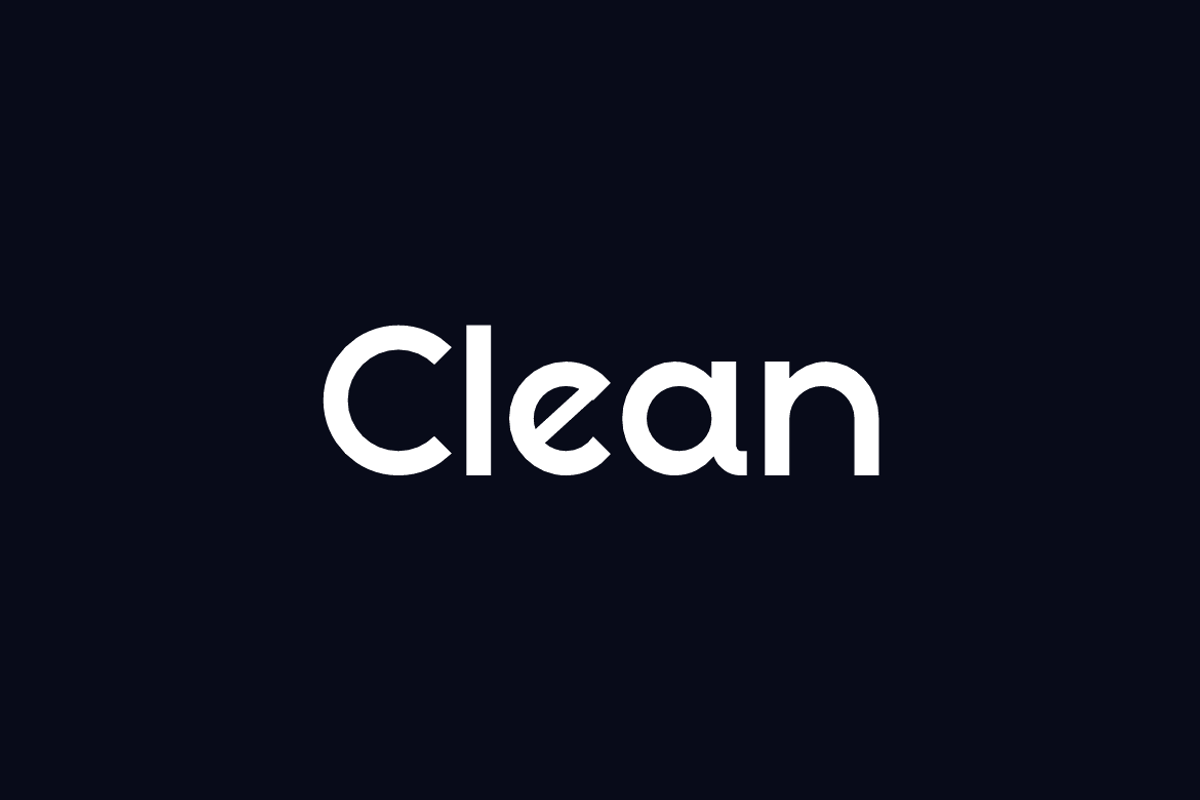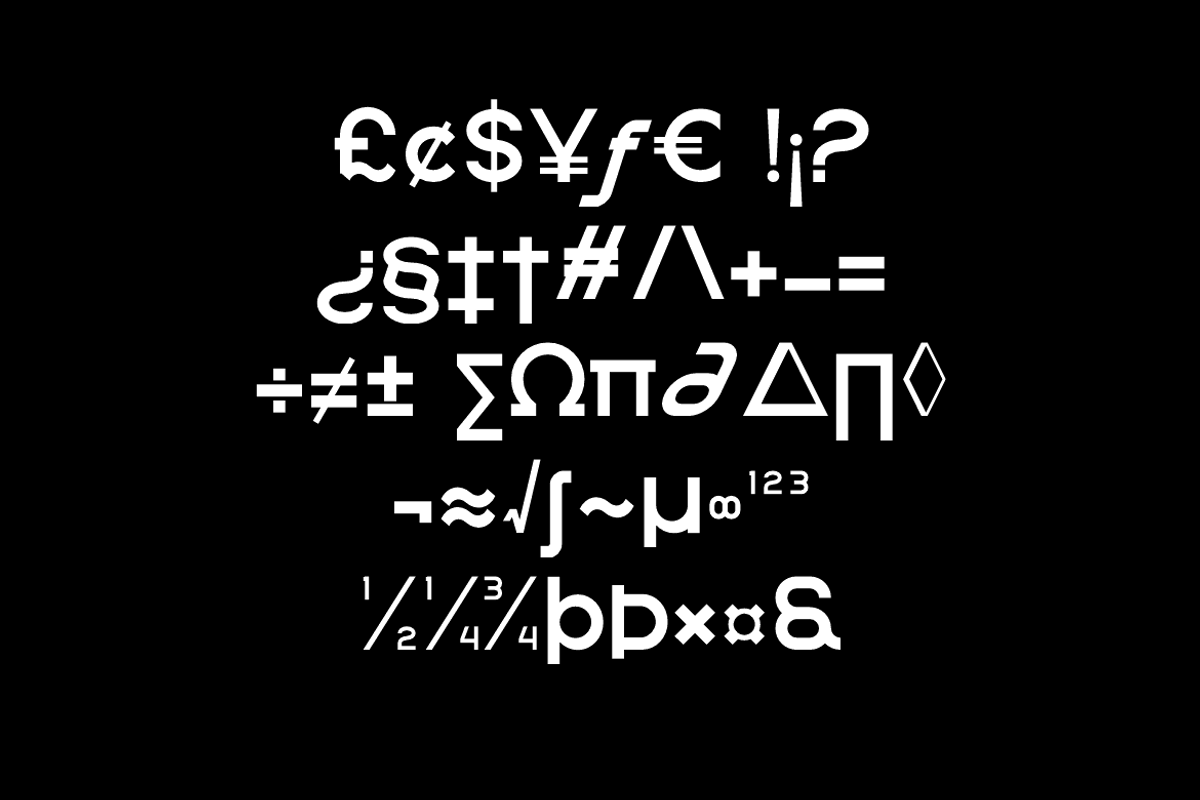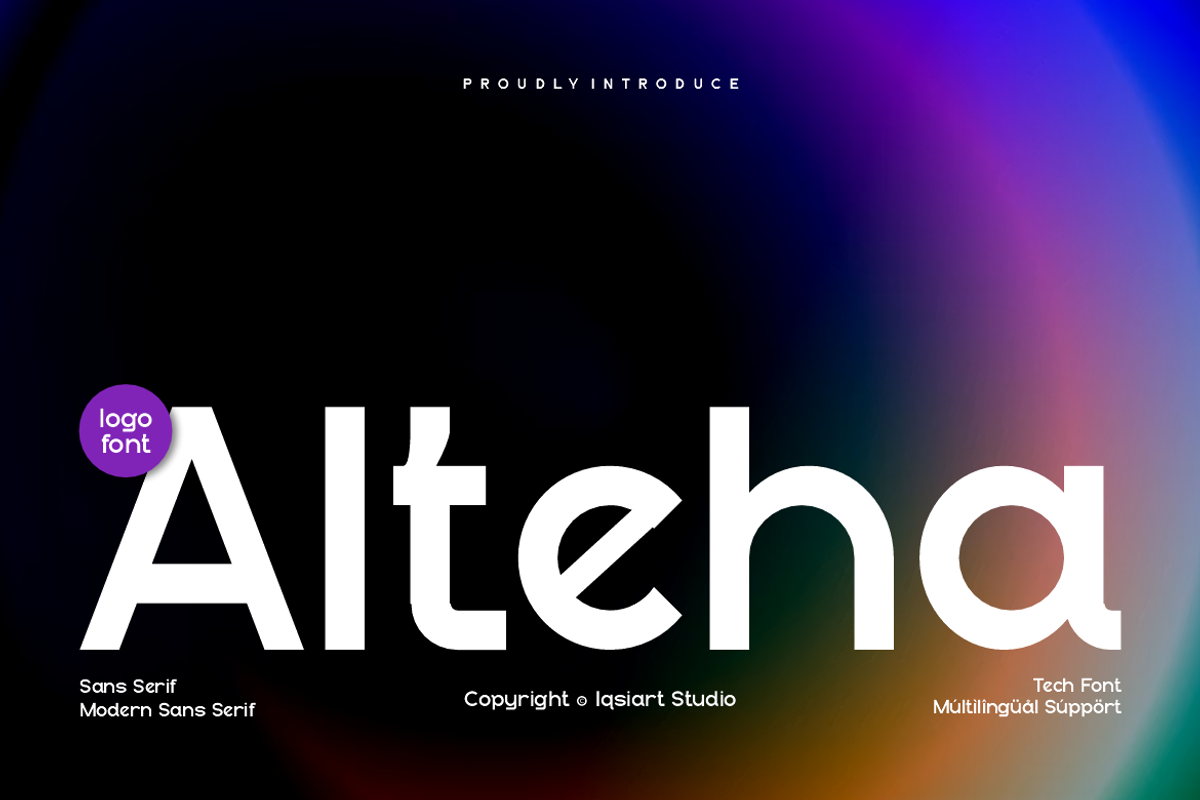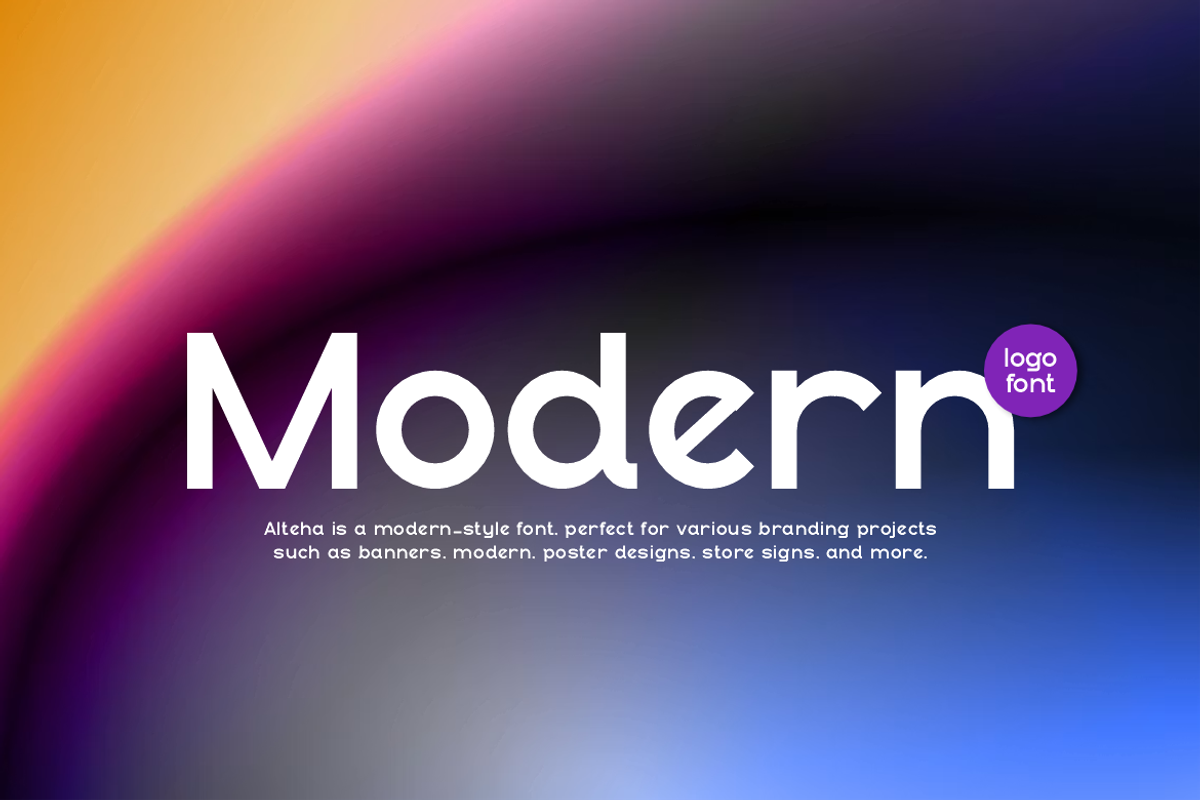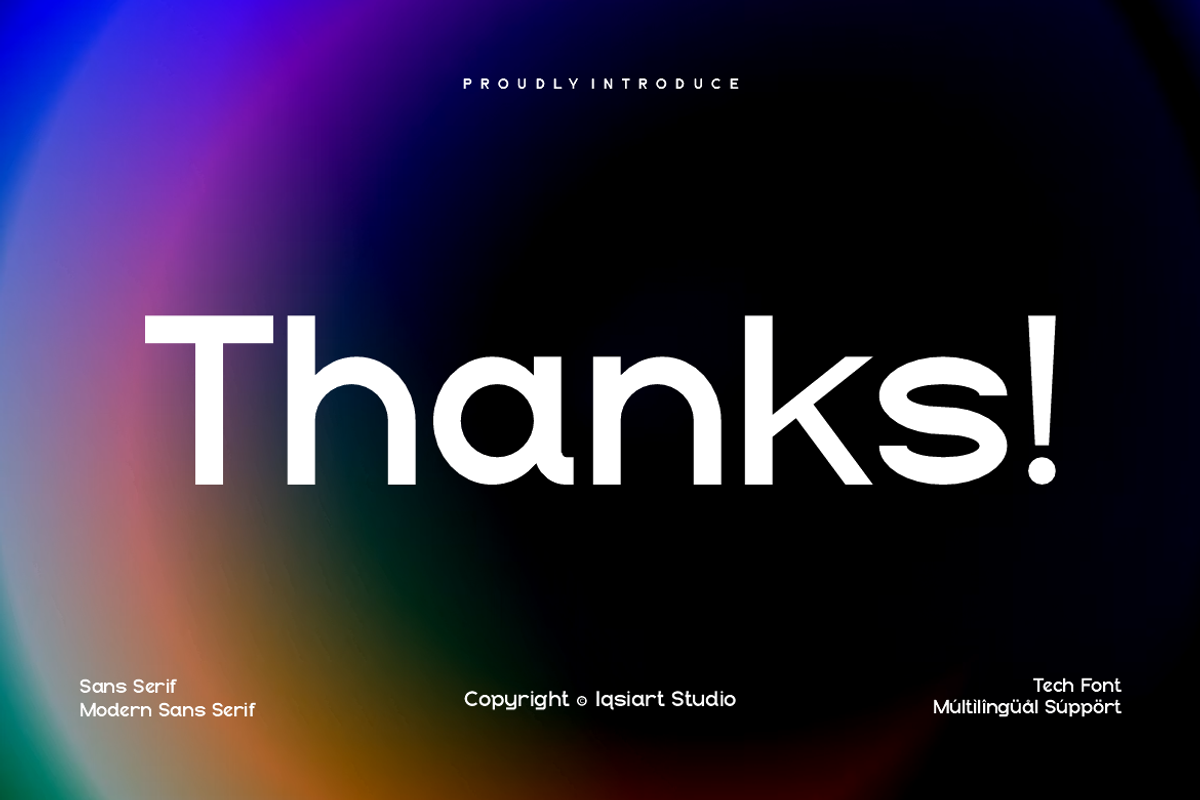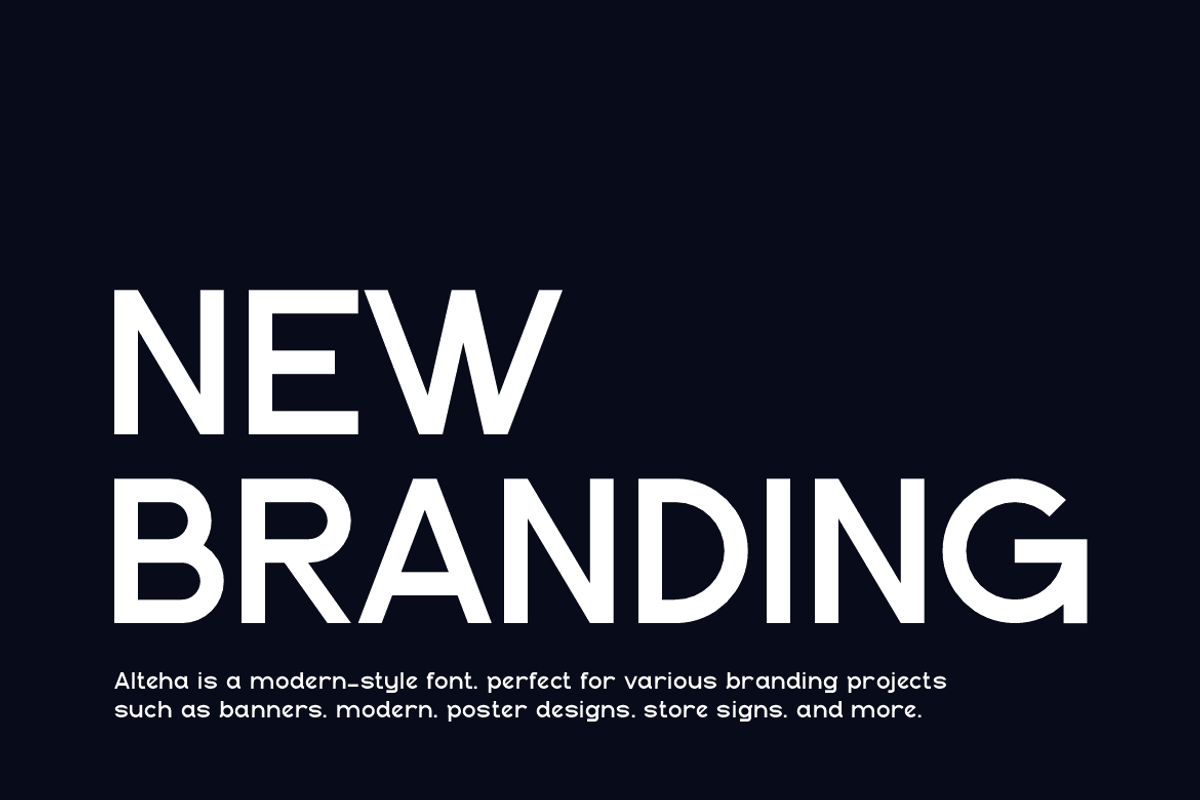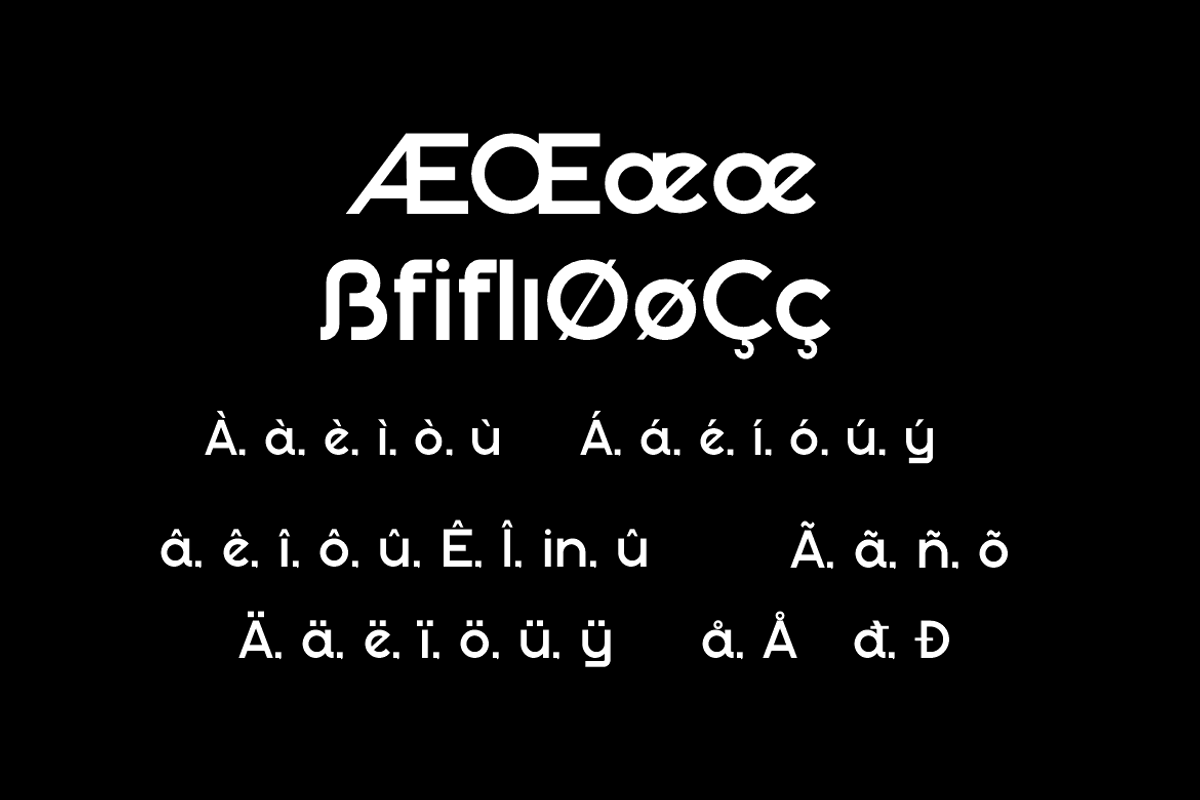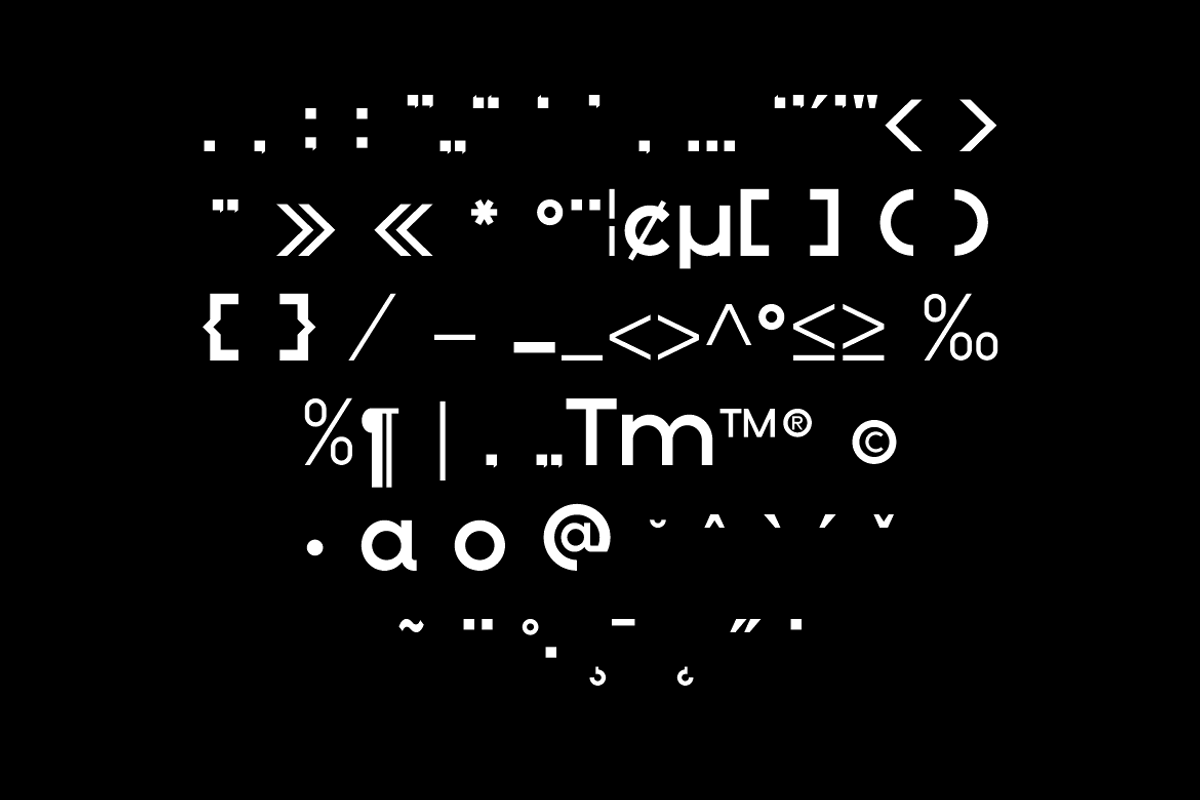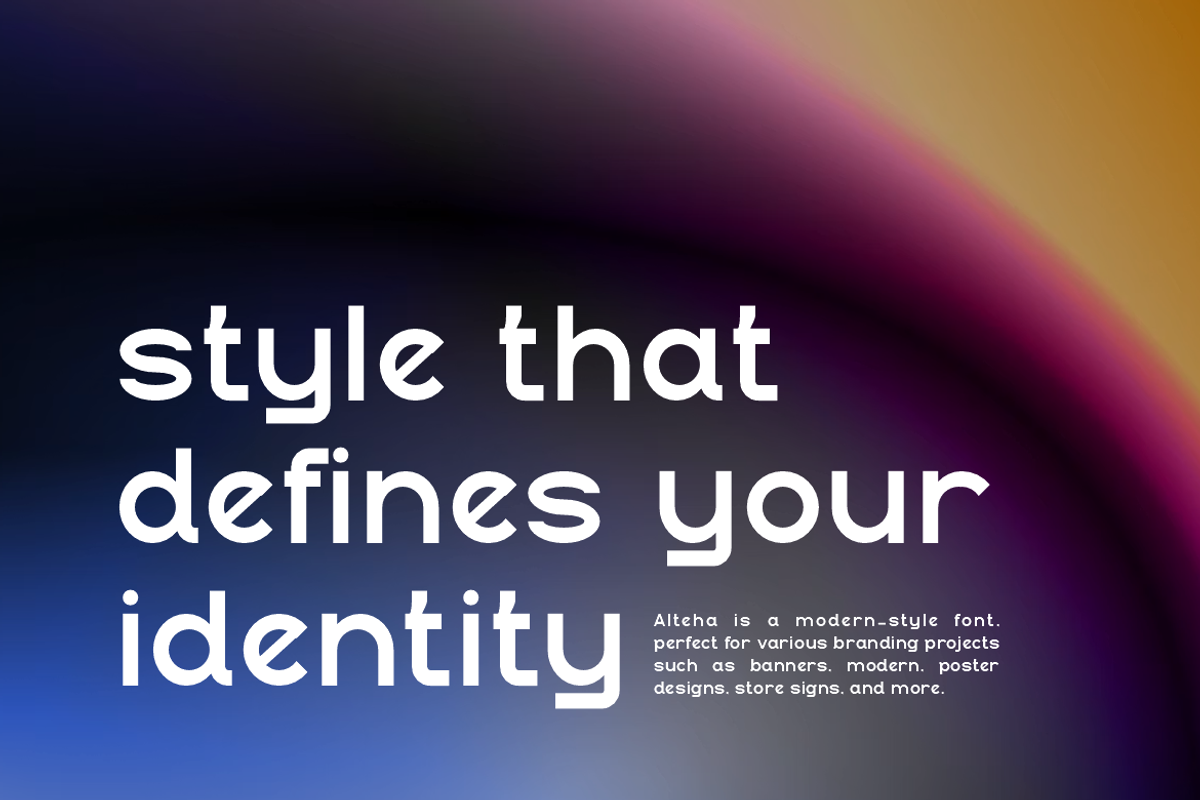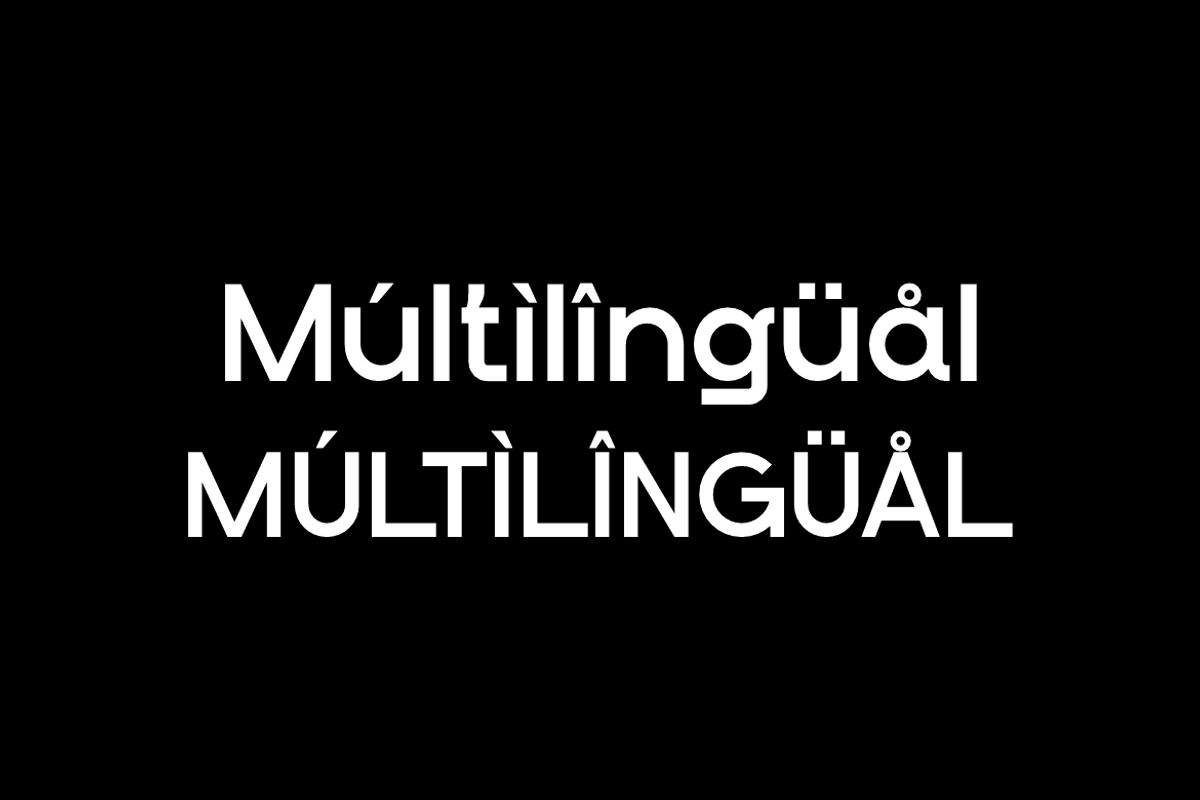
Alteha - Modern Brand Font
Alteha Font is a sans and authentic display typeface
that suits a variety of design needs. We offer a wide range of themes